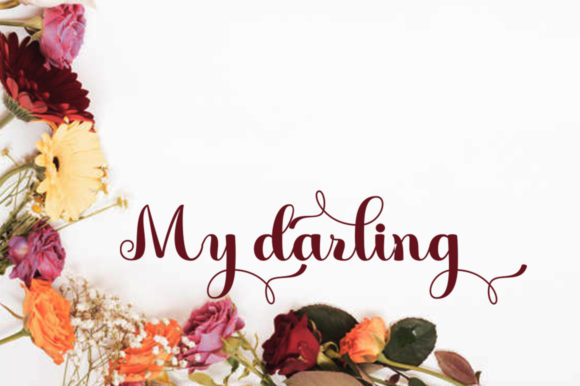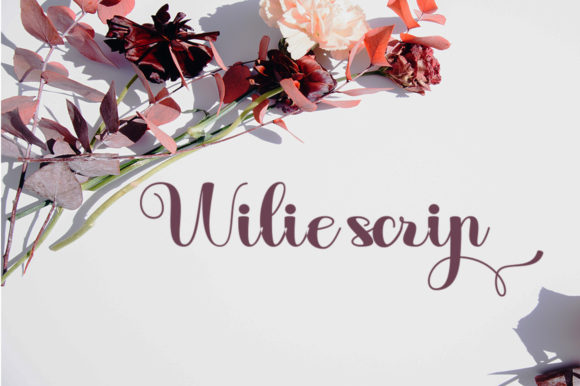
Waleye Font
db-ku.com - Script & Handwritten -- Waleye is a stylish and elegant script font. Fall for its ravishing style and use it to create gorgeous designs. This font is PUA encoded which means you can access all glyphs and swashes with ease!